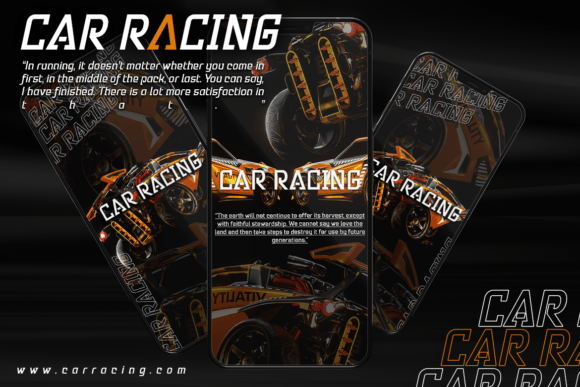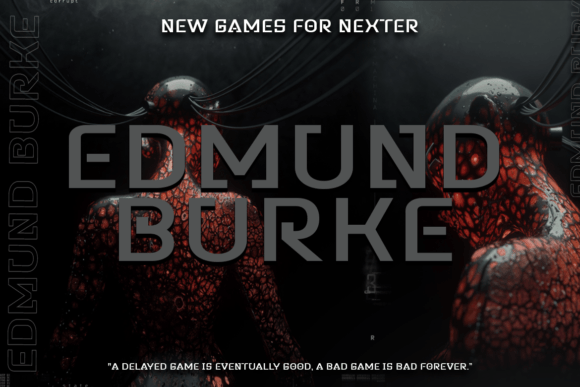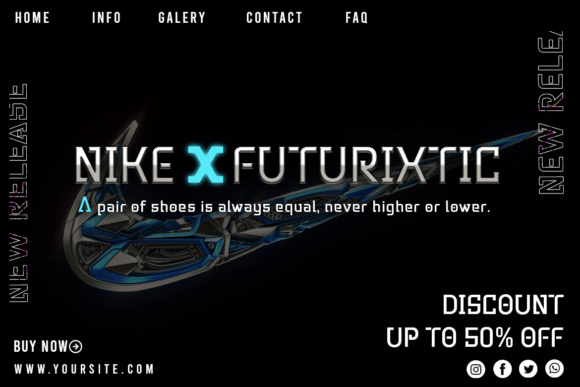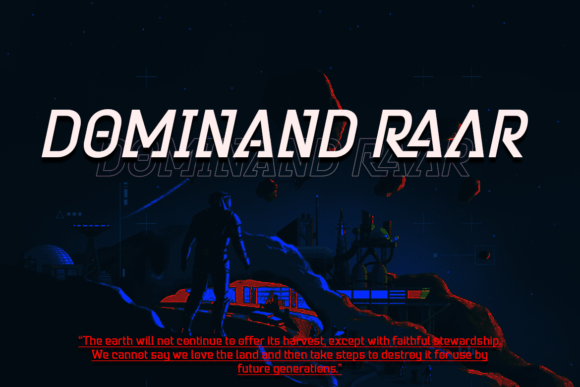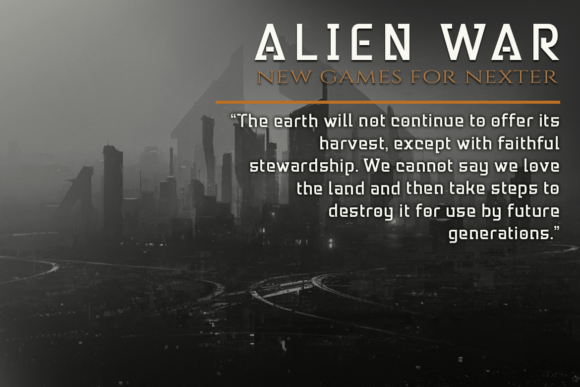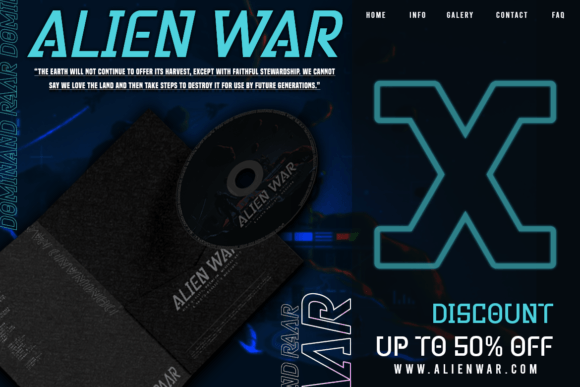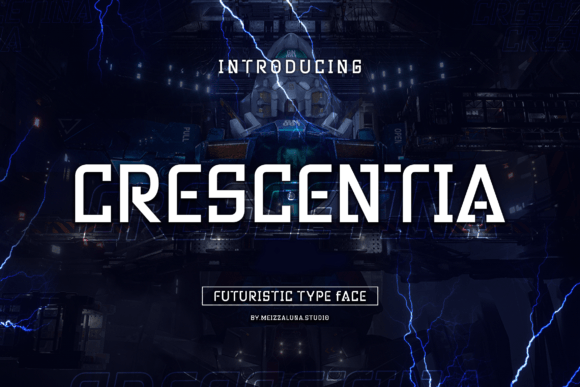
Crescentia Font: Elevate Your Designs with a Futuristic Twist
In the realm of typography, fonts play a pivotal role in shaping the visual identity of a design. For those seeking a bold and modern aesthetic, especially with a sci-fi edge, Crescentia Font emerges as an intriguing choice. This article aims to explore the nuances of Crescentia, a cool and futuristic display font, and how it can be a game-changer for designers and crafters looking to infuse their projects with a contemporary and out-of-this-world vibe.
The Essence of Crescentia Font
Crescentia Font is characterized by its modern and bold attributes, making it an ideal selection for projects that demand a futuristic appeal. Its design elements are carefully crafted to provide a clean, yet impactful look that can seamlessly integrate into various design contexts, from digital interfaces to print materials. The font’s futuristic design is not just about aesthetics; it’s about evoking a sense of innovation and forward-thinking.
Key Features of Crescentia Font
- Modern and Bold Vibe: Crescentia’s design is centered around creating a statement. Its boldness ensures that it stands out, making it perfect for titles, headings, and any design element that needs to capture attention.
- Sci-Fi Touch: What sets Crescentia apart is its inherent sci-fi charm. This makes it particularly suitable for projects related to technology, futuristic themes, and even gaming.
- Versatility: Despite its bold nature, Crescentia Font exhibits a surprising level of versatility. It can be used in a range of design projects, from posters and flyers to digital banners and website headers.
- Legibility: A crucial aspect of any font is its legibility. Crescentia strikes a balance between uniqueness and readability, ensuring that the message is conveyed effectively without compromising on style.
Application Areas for Crescentia Font
The potential applications for Crescentia Font are vast, given its distinctive yet versatile nature. Some of the key areas where Crescentia can make a significant impact include:
- Graphic Design: For graphic designers looking to create striking visuals, Crescentia can be a valuable asset. Its futuristic appeal can enhance the aesthetic of any graphic project.
- Web Design: In the digital realm, website headers, landing pages, and digital marketing materials can benefit from Crescentia’s modern look, helping to create a memorable user experience.
- Branding: Brands aiming to project a forward-thinking and innovative image can leverage Crescentia in their logos, advertisements, and packaging.
- Crafting and DIY Projects: Beyond professional design, Crescentia can also inspire crafters and DIY enthusiasts. It can be used in crafting personalized gifts, journaling, and other creative projects that benefit from a unique touch.
Tips for Using Crescentia Font Effectively
To maximize the potential of Crescentia Font, consider the following tips:
- Pair with Complementary Fonts: When using Crescentia for headings, pair it with a simpler, yet elegant font for the body text to maintain visual harmony.
- Experiment with Colors: While Crescentia’s design is impactful in black, don’t hesitate to experiment with colors that align with your project’s theme.
- Consider the Context: Ensure that the use of Crescentia aligns with the project’s tone and audience. Its futuristic vibe might not suit all types of content.
Crescentia Font stands out as a dynamic and versatile typeface that can add a cool, futuristic element to a wide array of design projects. Its bold and modern characteristics make it particularly appealing for designers and crafters aiming to impart a sci-fi touch to their creations. By understanding its features and potential applications, one can truly harness the power of Crescentia to elevate their designs into the future.